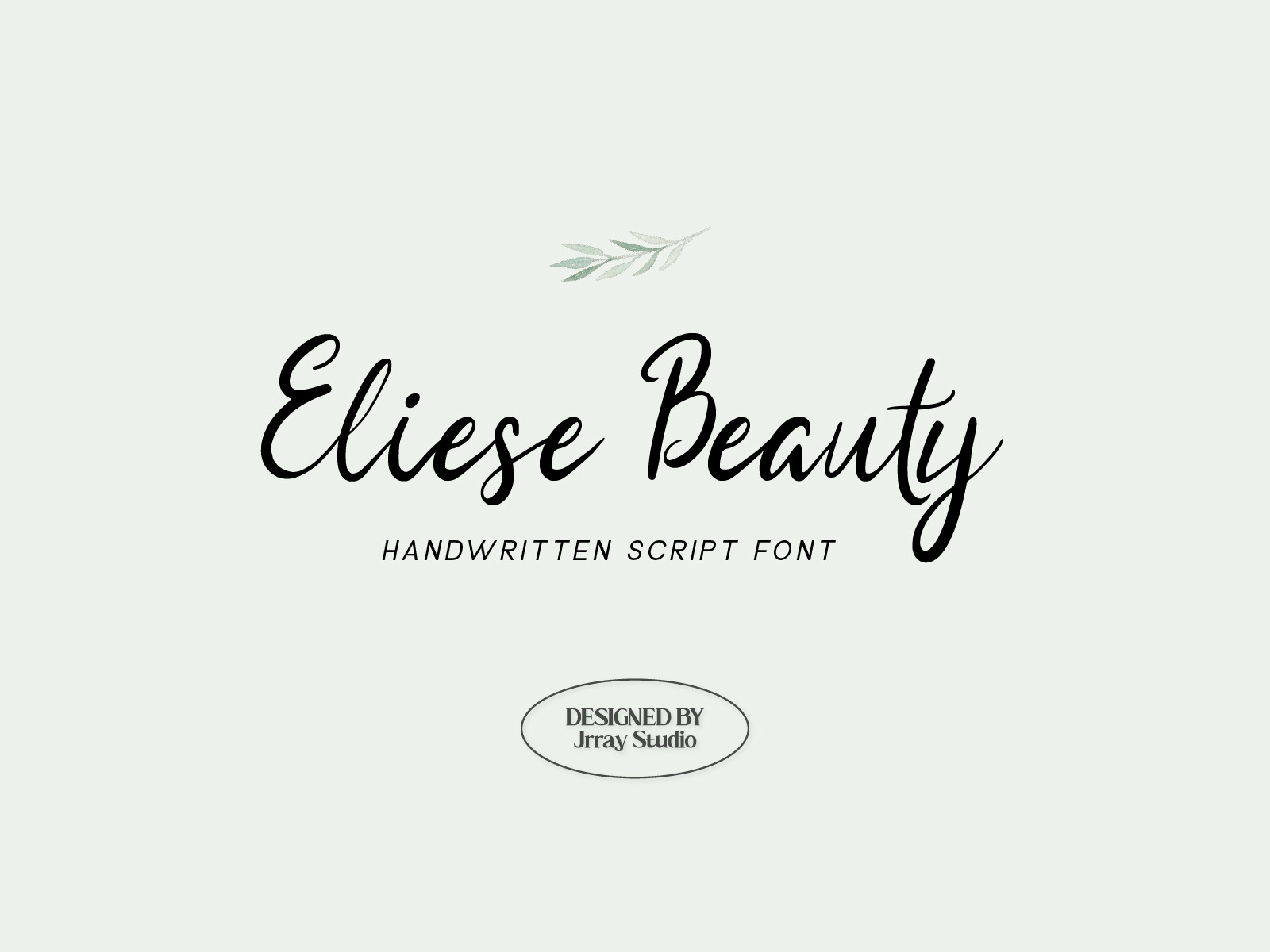
Eliese Beauty Font
Say hello to "Eliese Beauty" , a Professional Handwritten Script font typeface. It's very recommended for beauty content likes spa, salon, magazine, book ect.